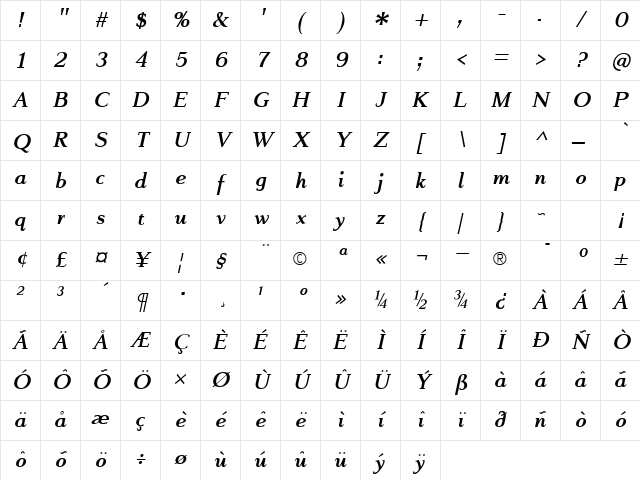
FlyHigh BoldItalic Free Font
FlyHigh BoldItalic
FlyHigh Family
Design Context for FlyHigh
FlyHigh is a composed and adaptable typeface that performs quietly and consistently across a wide range of design contexts. The slanted form adds forward momentum and visual energy. Its bold stroke weight gives it real presence on the page.
Pro Tip: Use FlyHigh for emphasis, pull quotes, and subheadings where its slanted energy can add rhythm to the layout.